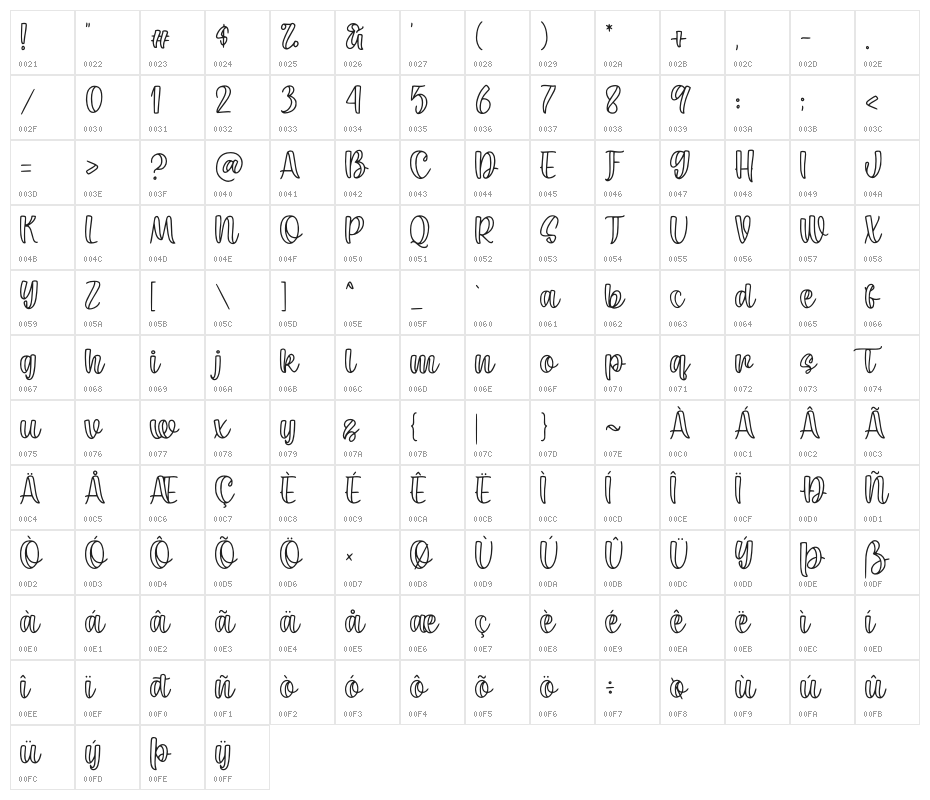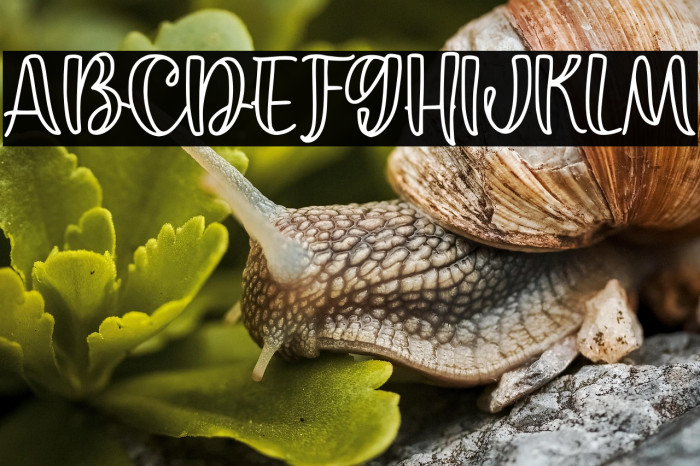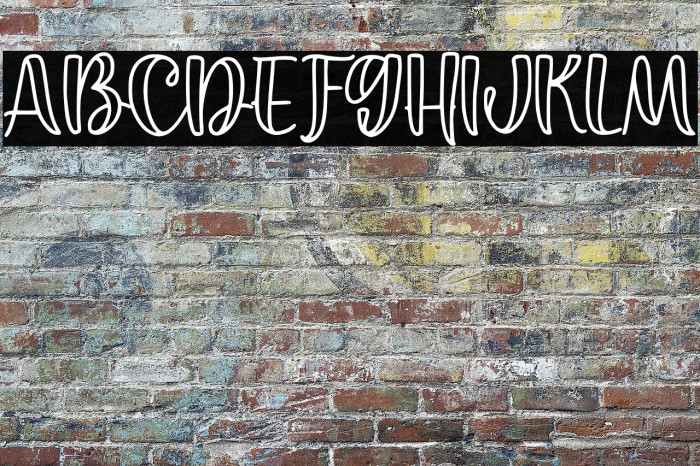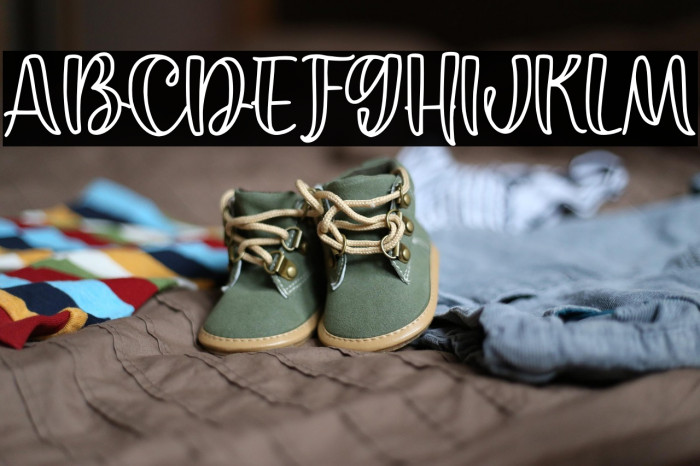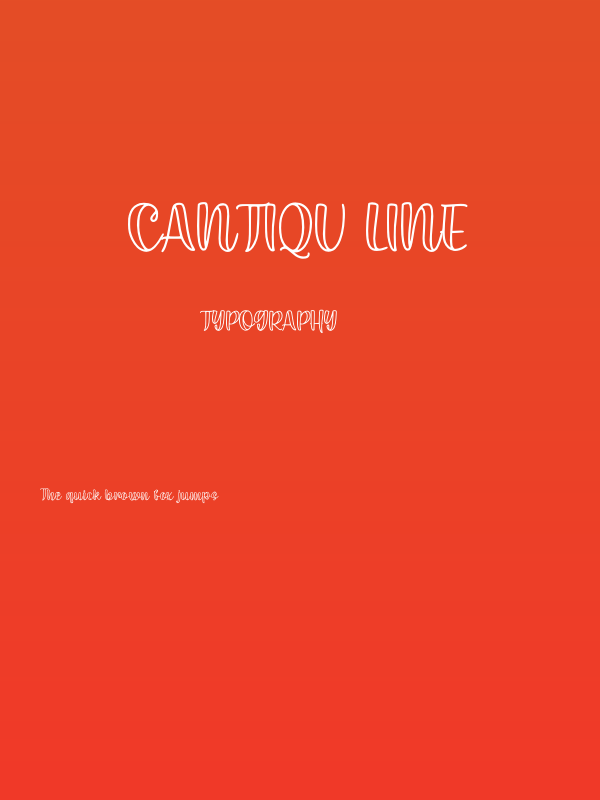
Cantiqu Line Font
Cantiqu Line Description
This font features an elegant and flowing script style, characterized by its smooth, continuous strokes and a handwritten appearance. The uppercase letters are bold and slightly exaggerated, giving a sense of grandeur and flair. The lowercase letters maintain a consistent flow with a slightly playful touch, making them highly legible despite their decorative nature. Numbers and special characters are crafted with the same attention to detail, ensuring uniformity across all glyphs. The overall design exudes a sense of sophistication and creativity, making it suitable for a variety of artistic and formal applications.
| Use Case | Logos, Invitations, Headlines |
| Proposed Projects | Ideal for wedding invitations, greeting cards, branding projects, and elegant signage. |